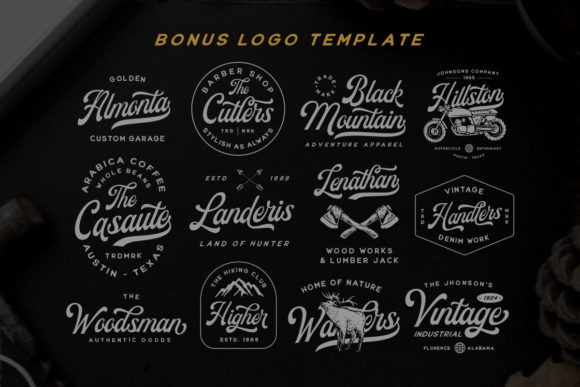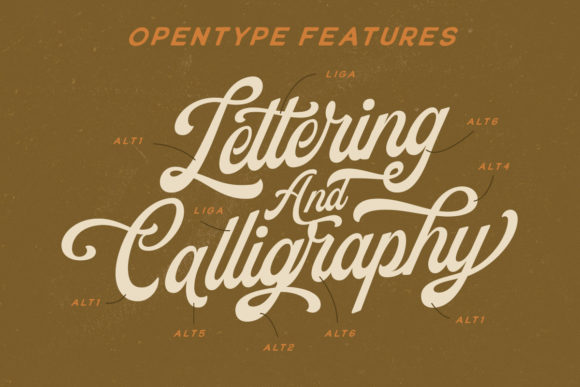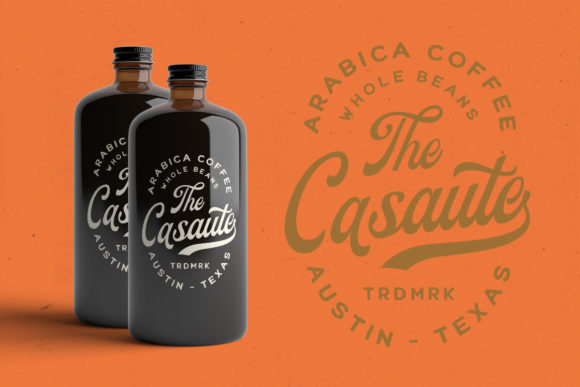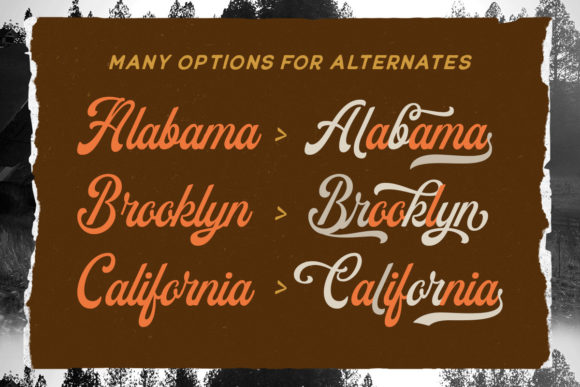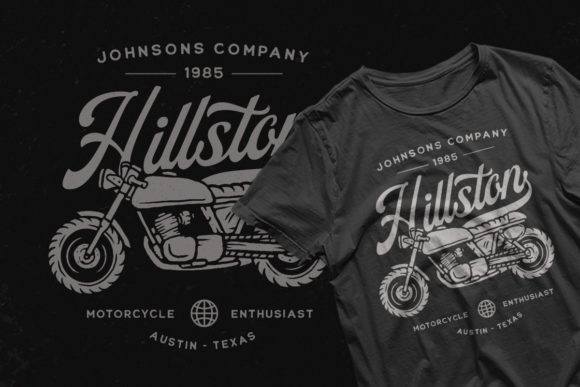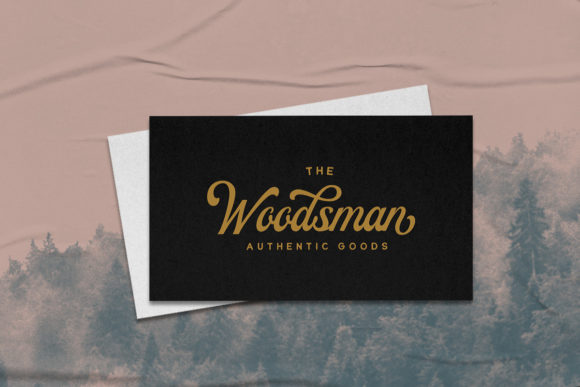
Foresight Font: Elevate Your Designs with a Retro Touch
In the world of typography, fonts play a crucial role in conveying the tone and personality of a design. For designers and crafters looking to add a touch of nostalgia and sophistication to their work, the Foresight Font is an excellent choice. This stunning duo font, consisting of handwritten and script styles, is specifically crafted to give your headlines and logotype projects a retro flair.
A Strong, Confident, and Dynamic Font
Foresight Font is designed to exude confidence and dynamism. Its bold and gorgeous appearance makes it perfect for headlines, logotypes, and any other design project that requires a strong visual impact. The font’s unique blend of handwritten and script styles creates a distinctive look that is both elegant and eye-catching.
One of the standout features of Foresight Font is its PUA (Private Use Area) encoding. This means that users can access all the glyphs and swashes with ease, allowing for greater flexibility and creativity in their designs. With PUA encoding, designers can effortlessly navigate the font’s extensive character set, including alternates, ligatures, and decorative elements.
Foresight Font is a versatile typeface that can be used in a wide range of design projects, including:
- Logos and branding: Create a lasting impression with a custom logo that exudes confidence and sophistication.
- Headlines and titles: Add a touch of elegance and retro flair to your headlines and titles.
- Posters and flyers: Make your posters and flyers stand out with a bold and eye-catching font.
- Packaging design: Elevate your packaging design with a unique and memorable font.
In conclusion, Foresight Font is a stunning duo font that offers a unique and retro touch to any design project. With its bold and confident appearance, PUA encoding, and versatility, it’s an excellent choice for designers and crafters looking to elevate their work. Whether you’re creating a logo, headline, or packaging design, Foresight Font is sure to make a lasting impression.